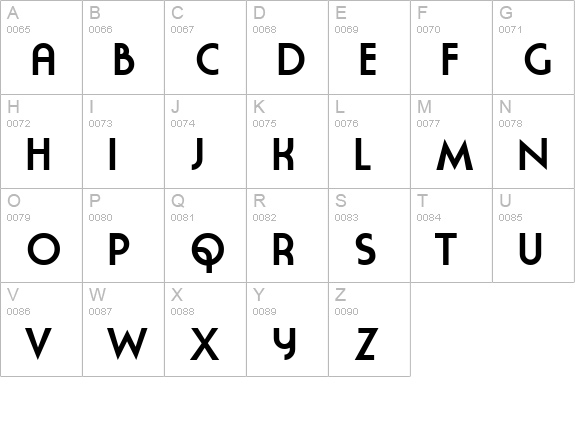
Moderna Font is a stunning typeface that perfectly captures the essence of modern design. With its sleek and clean lines, this font is ideal for any project that requires a contemporary touch. From logos to website headers, Moderna Font will effortlessly elevate the visual appeal of your work. What sets Moderna Font apart is not just its modern aesthetic, but also its versatility. This font comes in a range of weights and styles, allowing you to easily customize and adapt it to suit your specific design needs. Whether you're looking for a bold and impactful headline or a delicate and elegant body text, Moderna Font has got you covered. One of the best things about Moderna Font is that it is absolutely free. Yes, you read that right! You can freely download this font at FontsMarket.com, where you'll find a wide selection of high-quality fonts for all your design projects. So, whether you're a professional designer or a hobbyist, you can enjoy the beauty and functionality of Moderna Font without breaking the bank. Not only is Moderna Font free, but it also boasts excellent legibility, making it a practical choice for both print and digital applications. Its clean and crisp letterforms ensure that your message is conveyed with clarity and impact. Additionally, this font is optimized for screen use, ensuring that it looks amazing on websites, mobile apps, and other digital platforms. So, why wait? Embrace the modern aesthetic and download Moderna Font today. With its sleek design, versatility, and free availability at FontsMarket.com, this font is a must-have for any designer looking to create visually stunning and impactful designs. Don't miss out on this fantastic opportunity to elevate your design projects with Moderna Font.